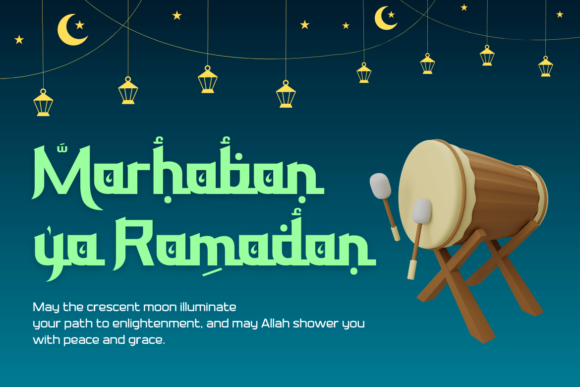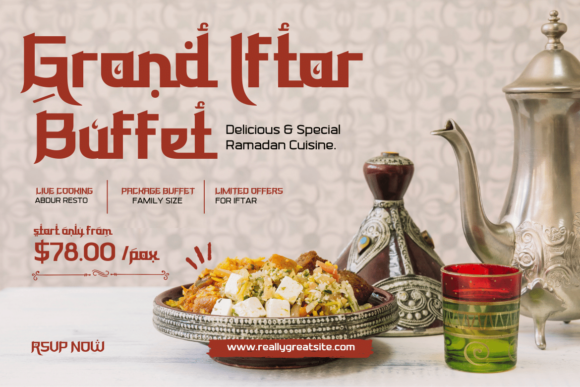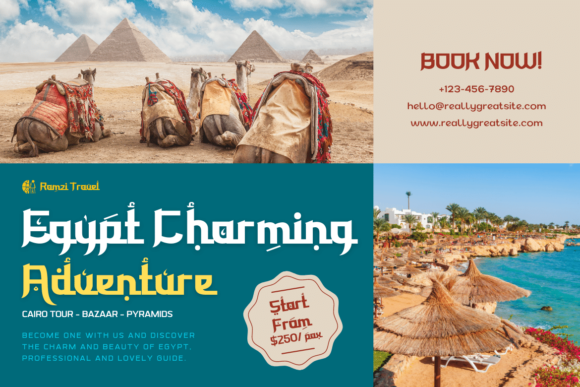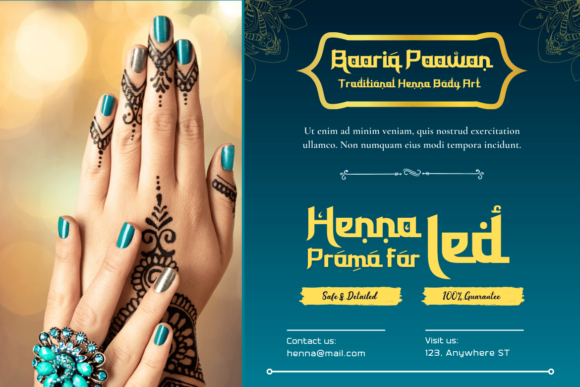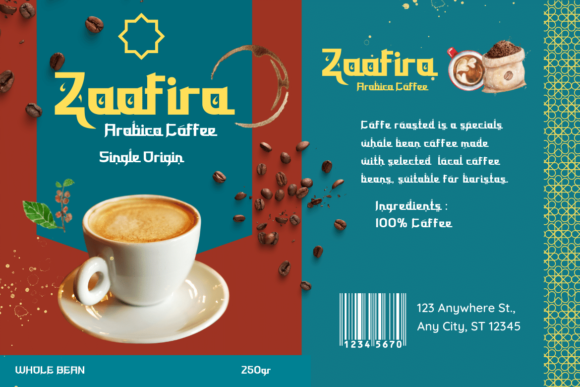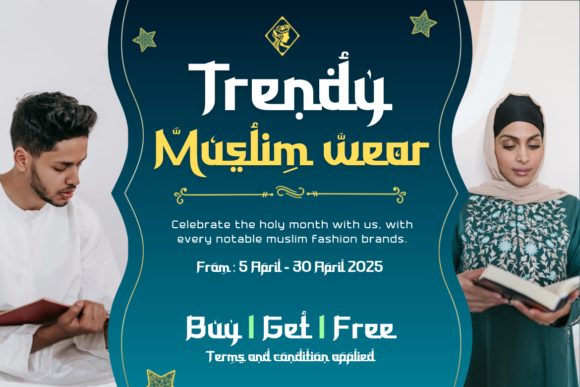
Introduction to Keswah Font
Keswah is a calligraphic display font inspired by the heritage of Middle Eastern typography.
Each letter is carefully drawn by hand and then digitized to add subtle stroke variations This font is suitable for a variety of your design needs, especially for designs that require a middle eastern theme.